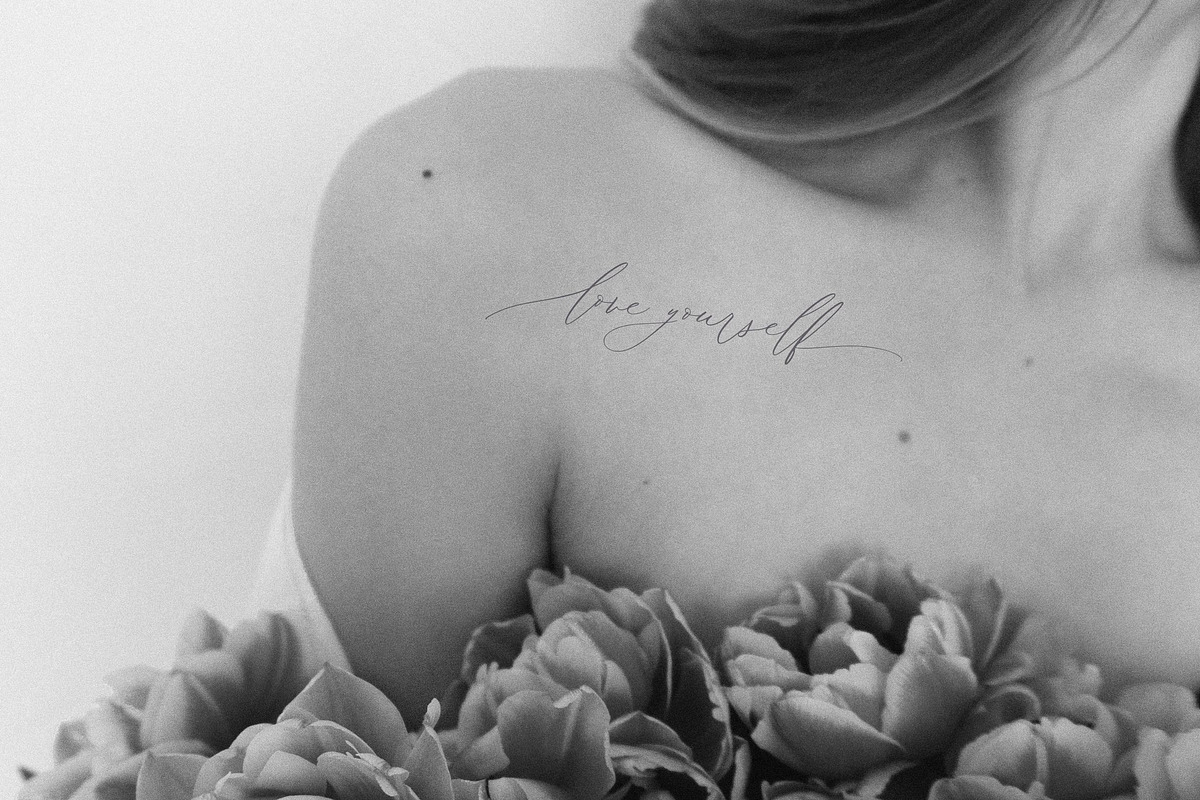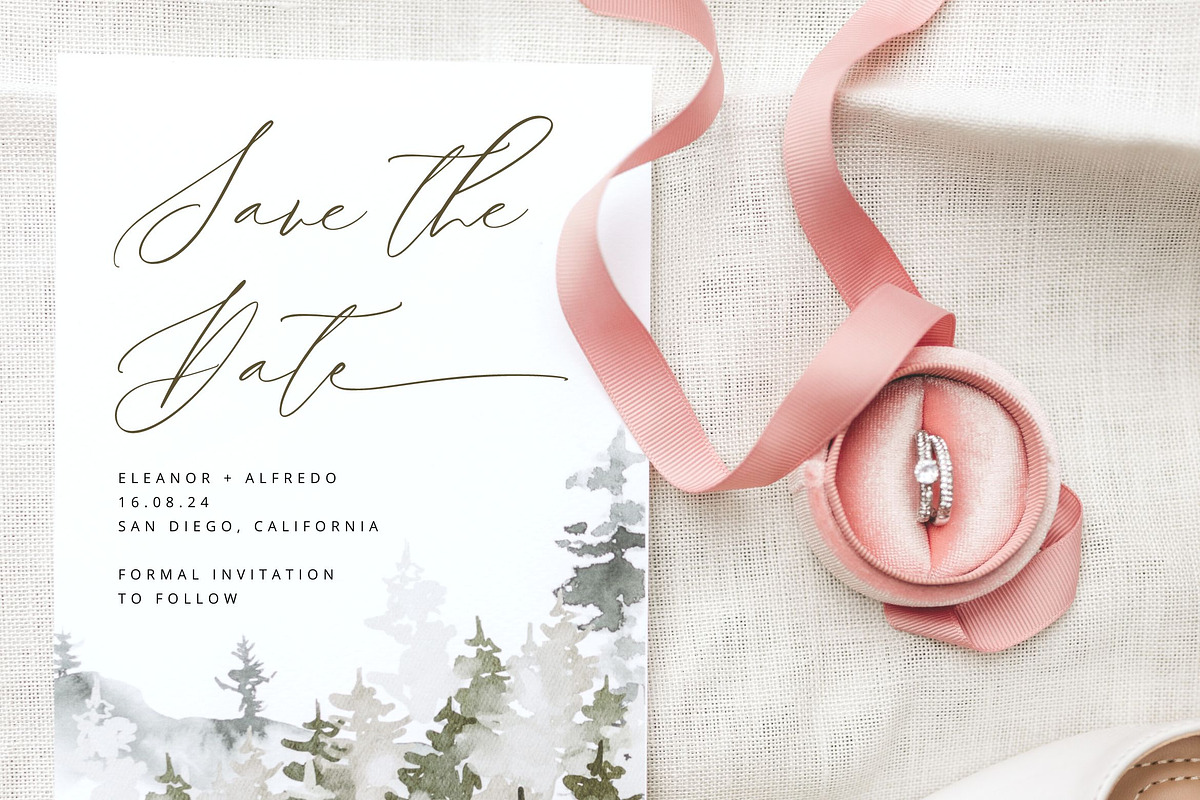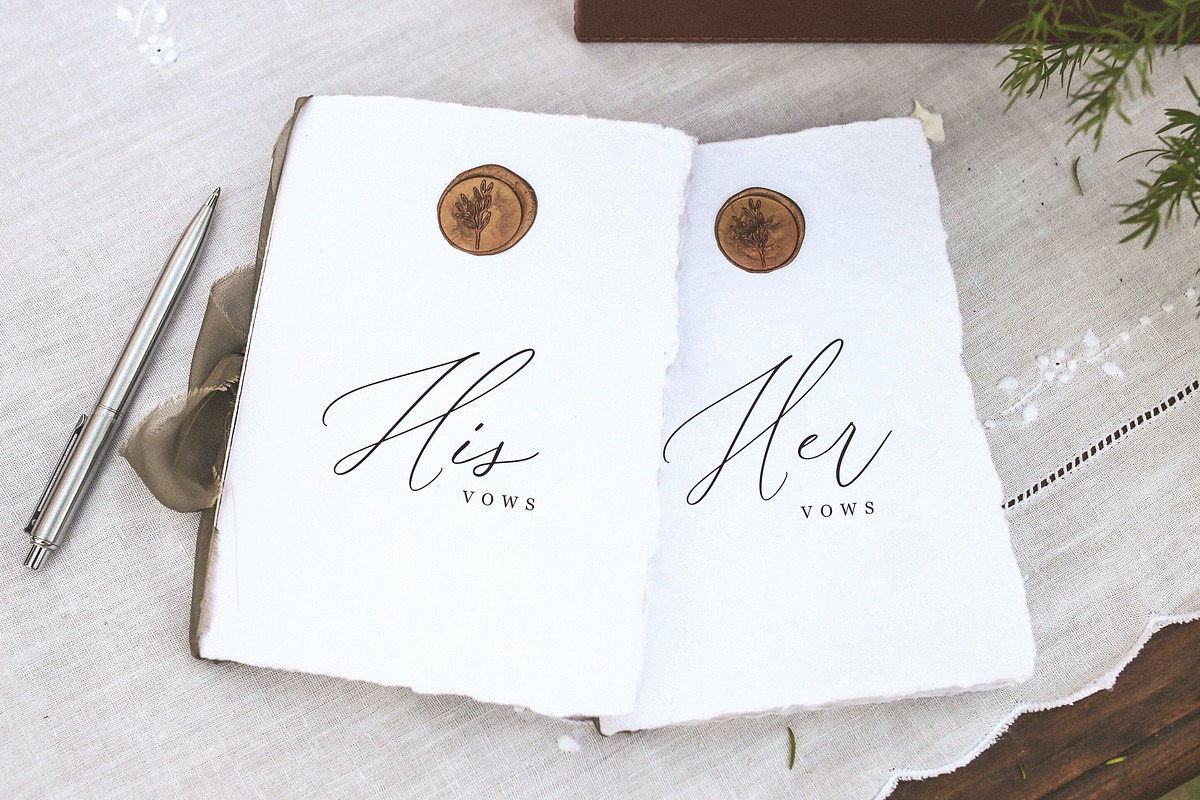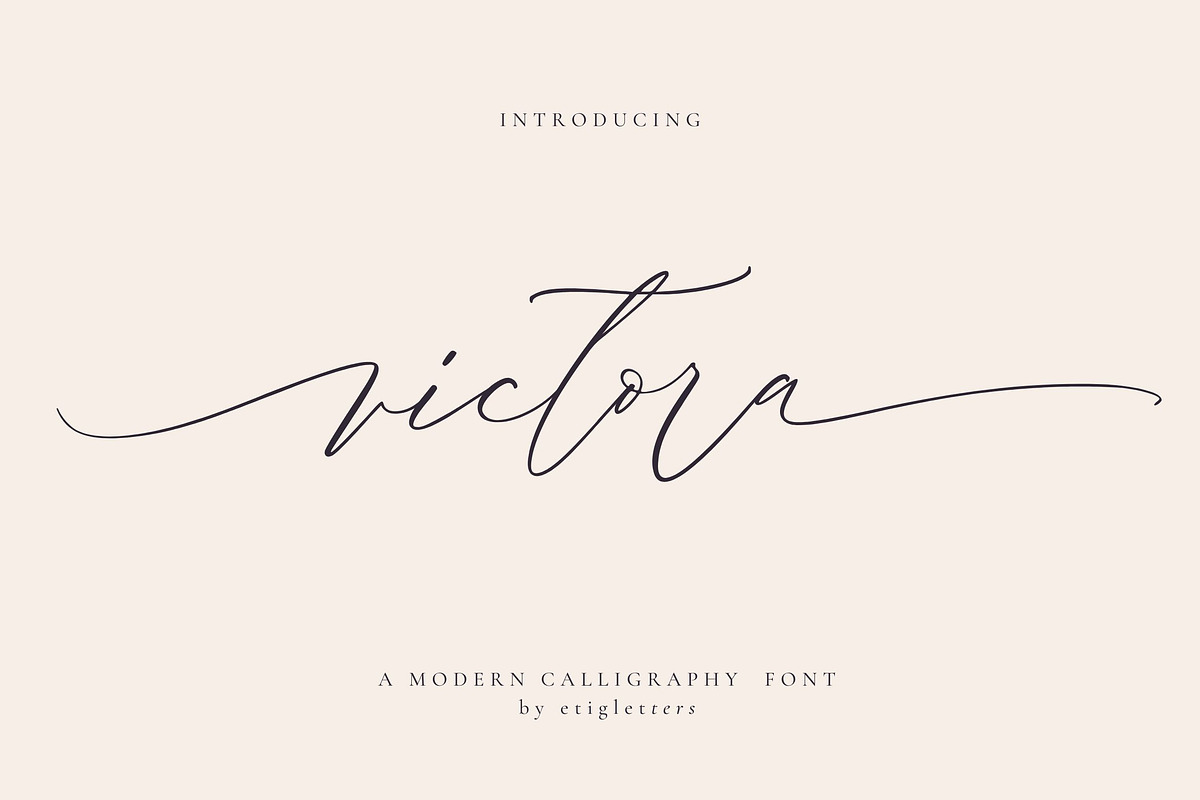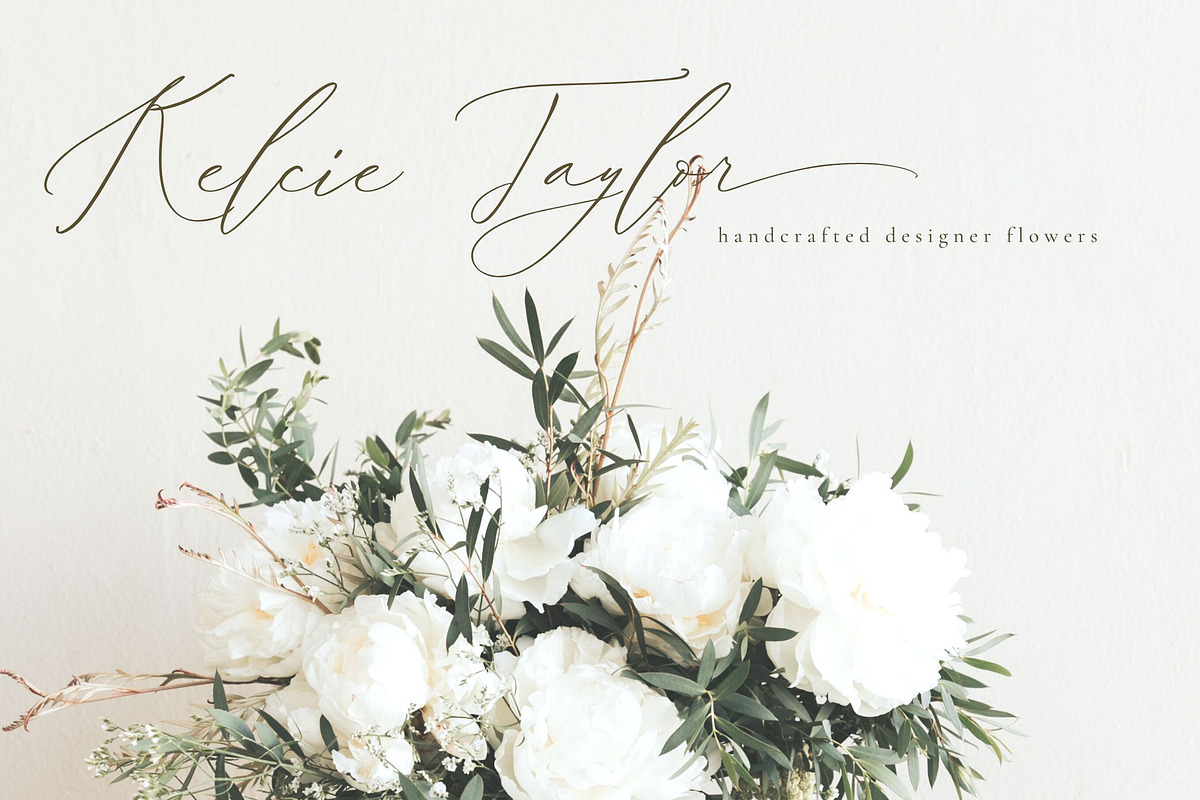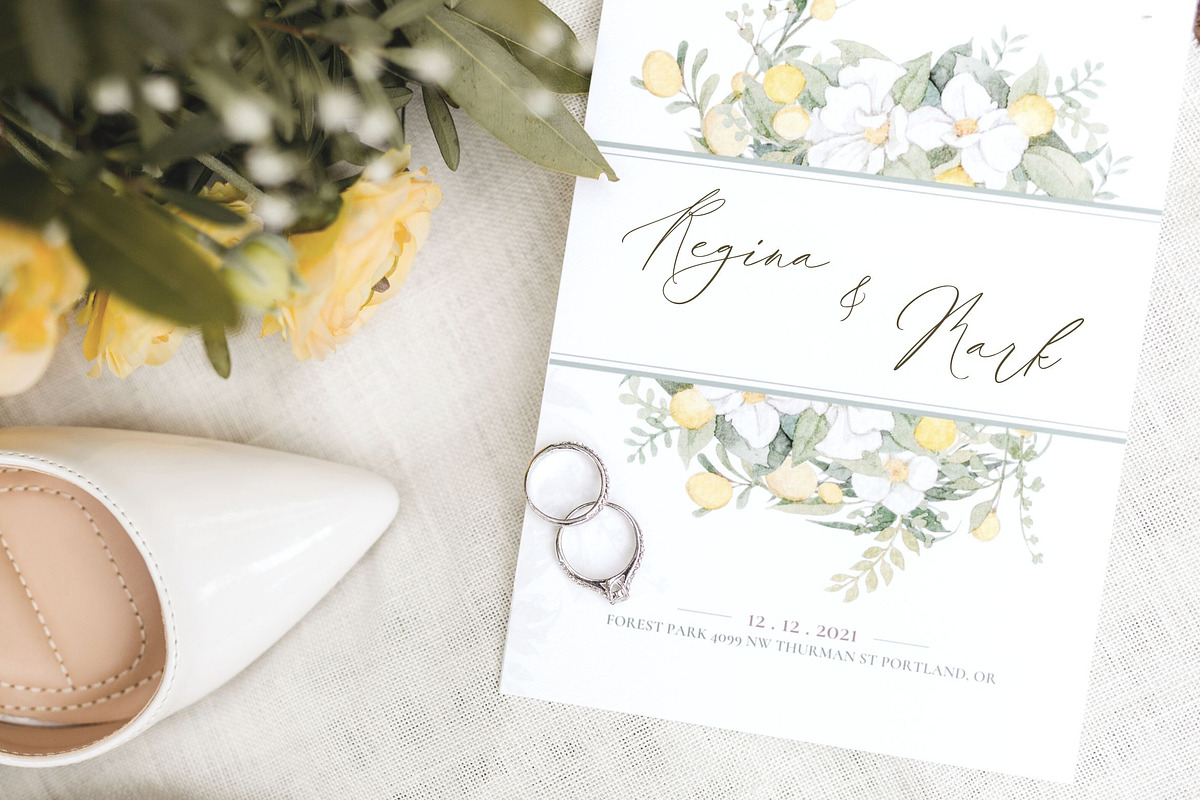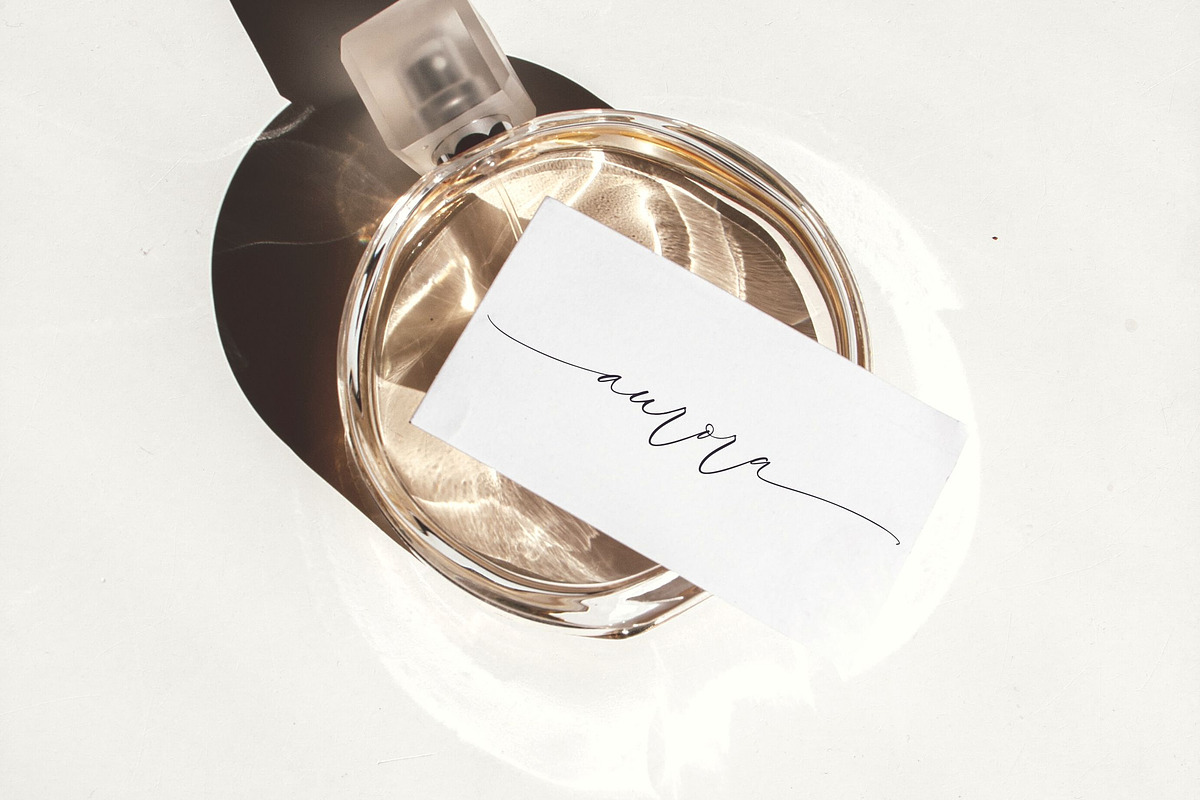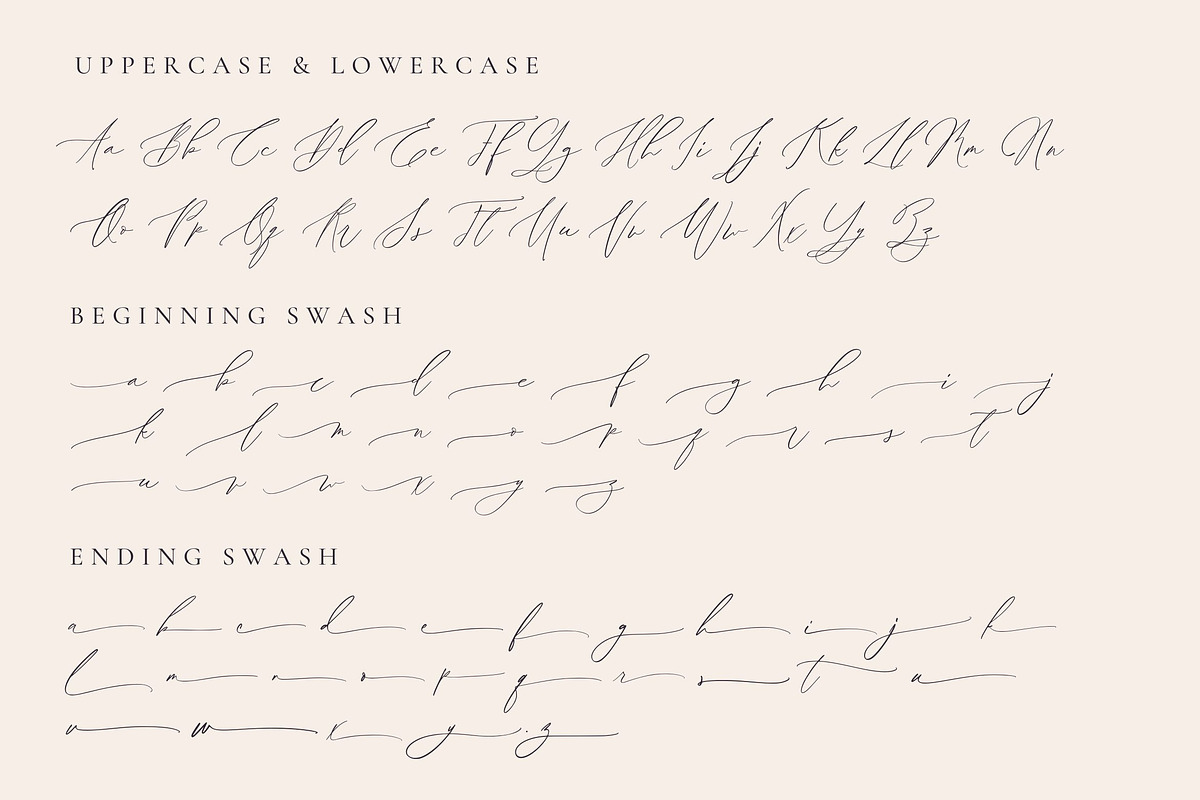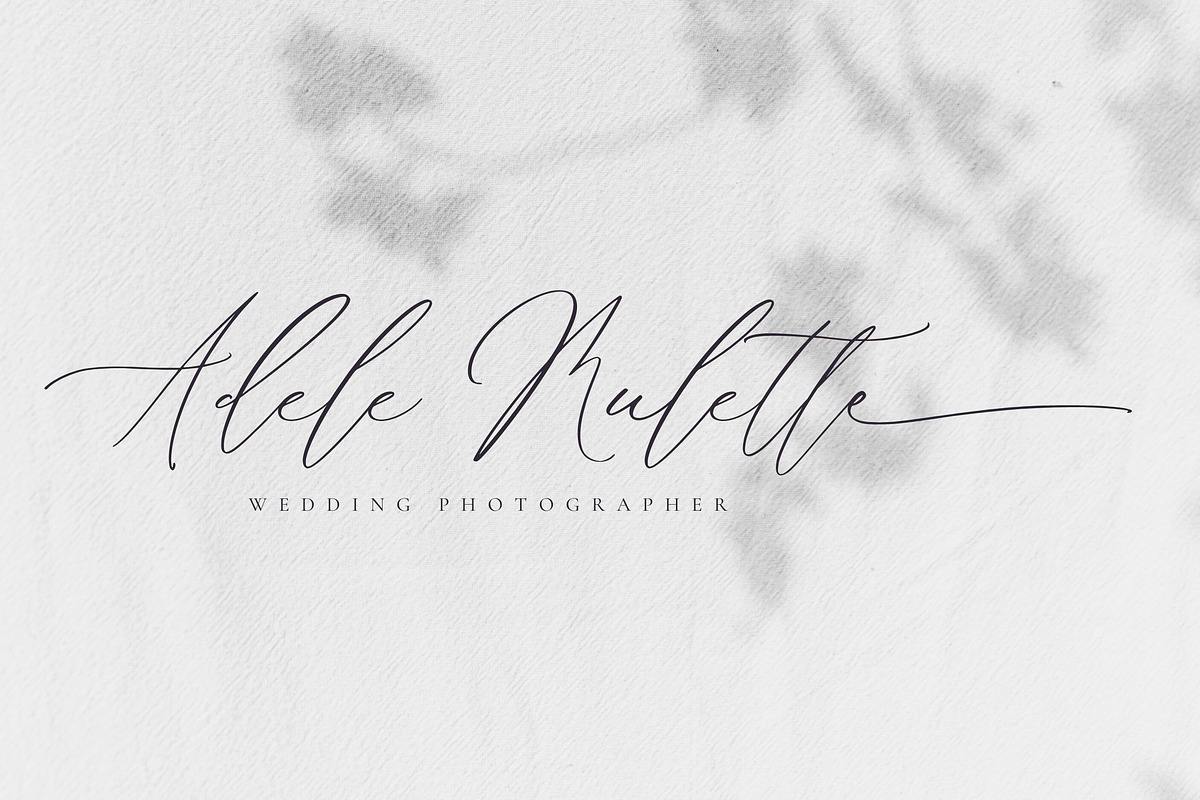
Victora Handwritten Wedding Font
Introducing, Victora is a handwriting script font perfect for wedding stationery, elegant handwritten logos and branding, websites, social media quotes, and more! Included are a full set of beginning and ending lowercase swashes.
This font also suitable to be combined with san serif that will make your design more perfect. Also already PUA Encoded!